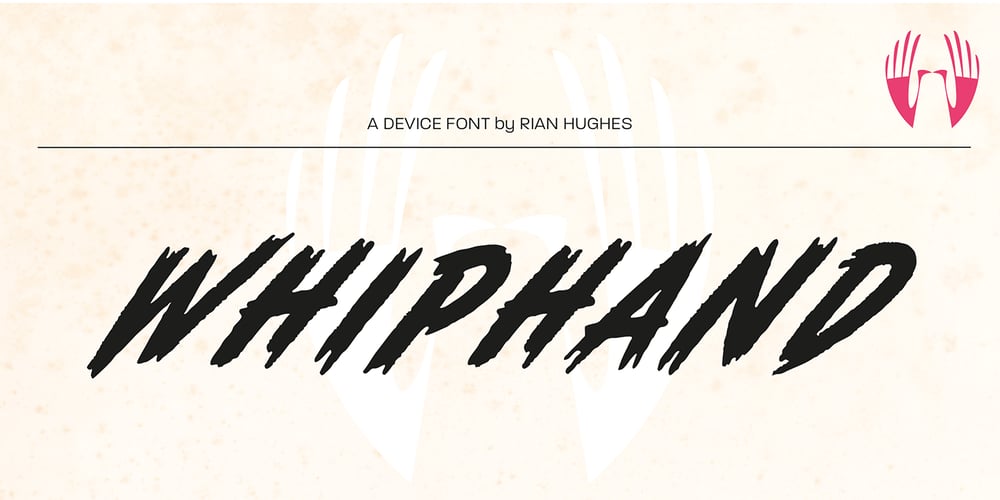
Whiphand
Whiphand font
Whiphand Font Family was designed by Rian Hughes and published by Device. Whiphand contains 1 styles and family package options. A freely hand-drawn display face evoking aggression, speed and raw energy.